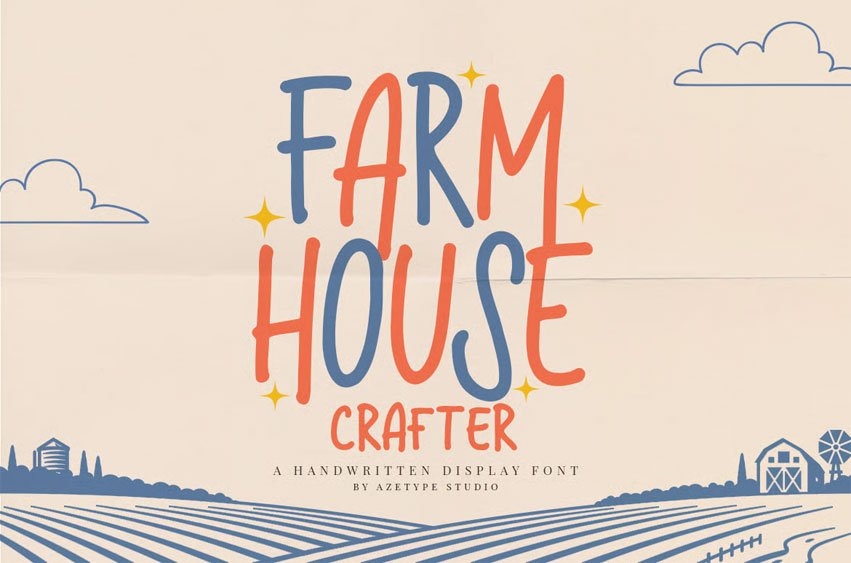
Farmhouse Crafter Font is a handwritten font suitable for your design project needs, such as; Craft themes, social media posts, quotes, overlays on images, tagline logos, posters, print needs, website banners, and more.
- A set of uppercase and lowercase glyphs
- Number, symbol, and punctuation
- Some Swash and Dingbats